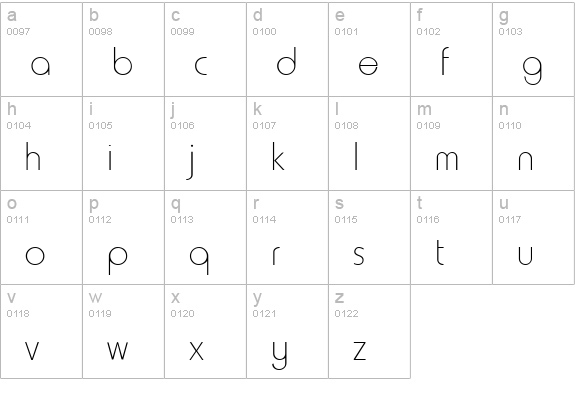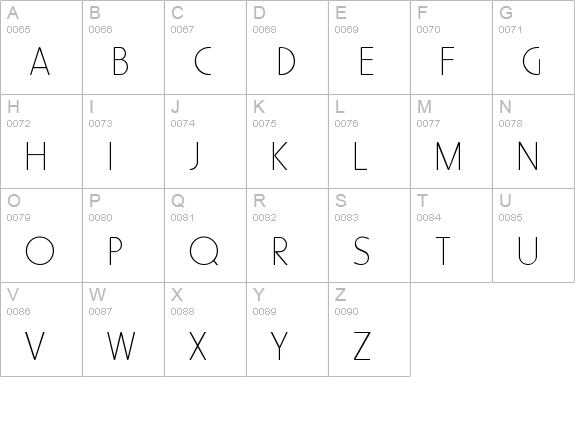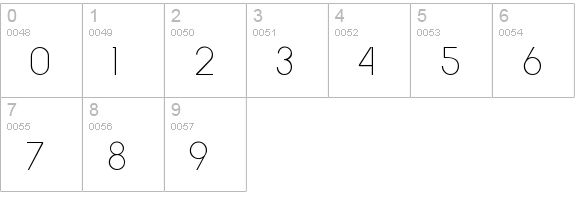
HammerThin Regular Font Details
HammerThin Regular is the standard, neutral variant in the HammerThin typeface family \xE2\x80\x94 well suited to general body text, paragraphs, and standard typographic work.
HammerThin Regular font is a modern and sleek typeface that exudes elegance and sophistication. With its clean lines and slender letterforms, this font is perfect for projects that require a refined and polished look. Whether you're designing a logo, creating a website, or crafting a presentation, HammerThin Regular font will add a touch of class to your work. What sets HammerThin Regular font apart is its versatility. It can effortlessly adapt to various design styles, from minimalistic and contemporary to classic and timeless. The thin strokes and balanced proportions make it ideal for both headlines and body text, ensuring a harmonious and balanced layout. One of the best things about HammerThin Regular font is that it's free. Yes, you read that right! This amazing font is freely available to download at FontsMarket.com. This means that you can enhance your design projects without having to worry about breaking the bank. So why settle for generic and overused fonts when you can have HammerThin Regular font for free? Not only does HammerThin Regular font offer high-quality design, but it also provides exceptional legibility. Each letter is meticulously crafted to ensure clarity, making it easy for readers to absorb your message. Whether you're designing for print or digital media, this font will ensure that your content is easily readable, leaving a lasting impression on your audience. So, if you're looking for a font that combines style, versatility, and affordability, look no further than HammerThin Regular font. Download it for free at FontsMarket.com and elevate your design projects to new heights. With its sleek look and professional appeal, this font is sure to make a statement and set your work apart from the rest.